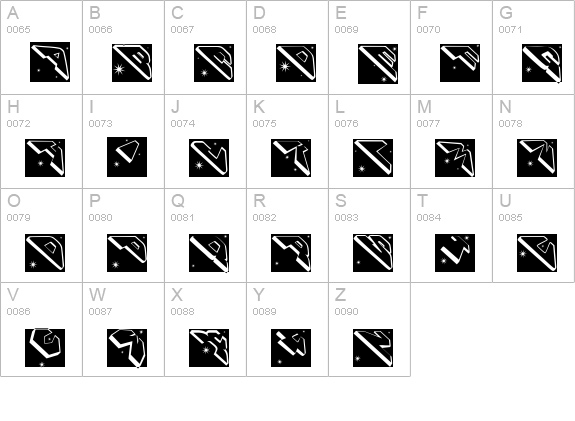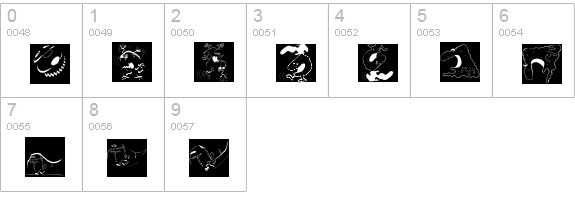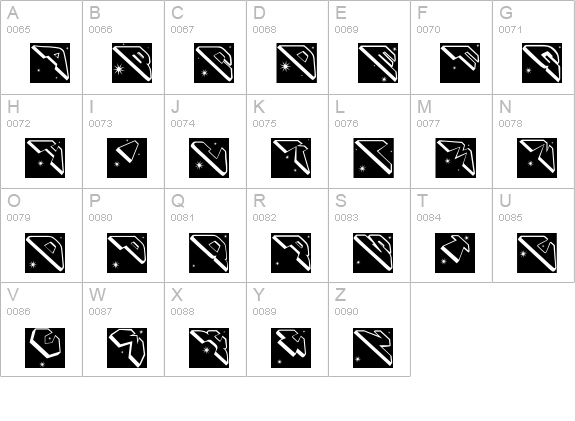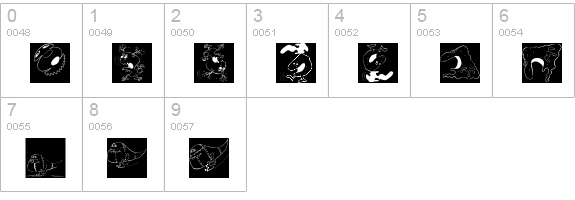
SpaceAttackTwo Font Details
SpaceAttackTwo font is a captivating and futuristic typeface that is sure to transport your design projects to another dimension. With its sleek lines and bold letterforms, this font exudes an air of confidence and modernity. Its sharp corners and unique curves give it a distinct edge, making it ideal for projects that require a touch of technological sophistication. This font is generously offered to you for free, allowing you to easily and seamlessly incorporate it into your creative ventures. Whether you're designing a cutting-edge logo, crafting a captivating poster, or enhancing the typography of your website, SpaceAttackTwo font is the perfect choice to make your work stand out from the crowd. With its versatility and wide range of characters, this font is suitable for both titles and body texts. Its legibility ensures that your message will be conveyed clearly and effectively, while its boldness adds a touch of excitement and intrigue. Whether used in print or digital media, SpaceAttackTwo font is guaranteed to make a lasting impression. To access this captivating font, simply visit FontsMarket.com, where it is freely available for download. FontsMarket.com offers a vast collection of high-quality fonts, and SpaceAttackTwo font is just one of the many gems waiting to be discovered. So why wait? Unleash your creativity and embark on a design journey like no other with SpaceAttackTwo font.